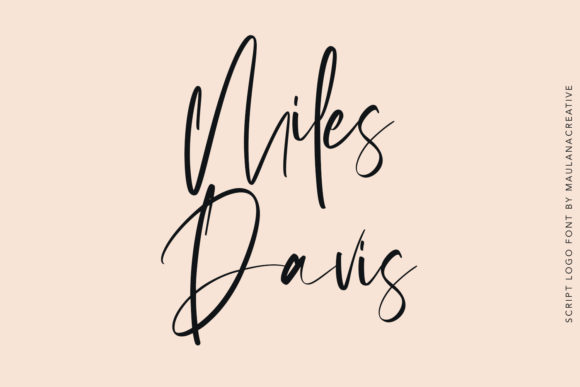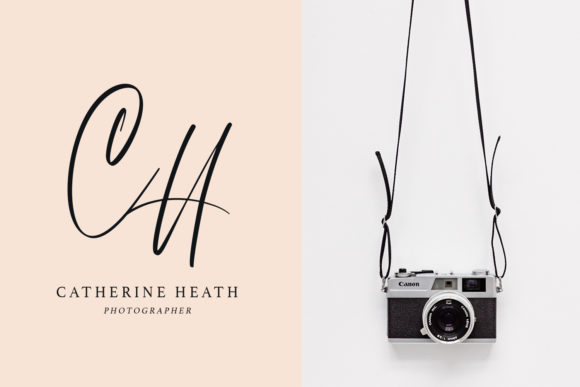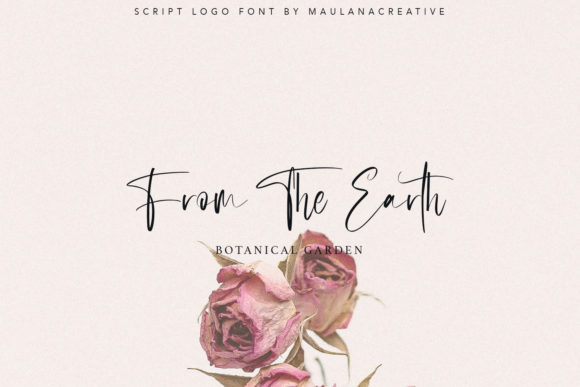
Introduction to Oakmont Font
Oakmont is a great handwritten font, carefully handcrafted to become a true favorite.
Its casual charm makes it appear wonderfully down-to-earth, readable and, ultimately, incredibly versatile Oakmont will look outstanding in any context, whether it’s being used on busy backgrounds or as a standalone headline.
Oakmont Font offers exceptional quality and versatility, making it a valuable addition to your design toolkit. Whether you’re creating for personal projects or commercial use, Oakmont Font delivers professional results.